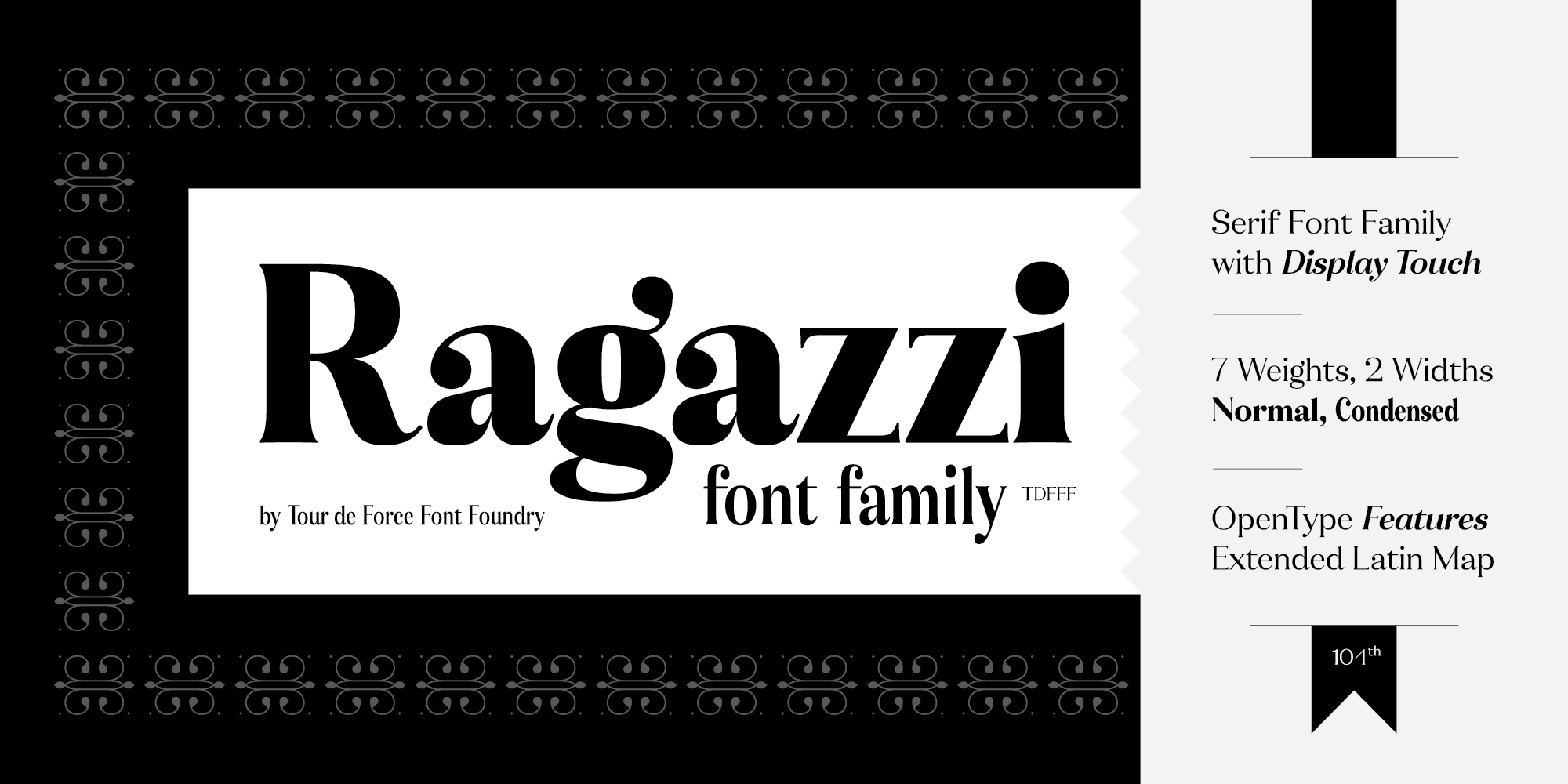
Ragazzi Font Free Download is a fun, bold, and playful display typeface that radiates youthful energy and creativity. With its chunky letterforms, lively curves, and eye-catching design, Ragazzi Font is perfect for posters, children’s books, branding, product packaging, party invitations, and social media graphics. Its joyful and dynamic style makes it ideal for projects that need to feel vibrant, friendly, and approachable.
Whether you’re designing playful logos, colorful event materials, or bold headlines, Ragazzi Font delivers a fun, charismatic presence that stands out across both print and digital media. Its combination of creativity and readability makes it a versatile choice for designers looking to infuse personality into their work.